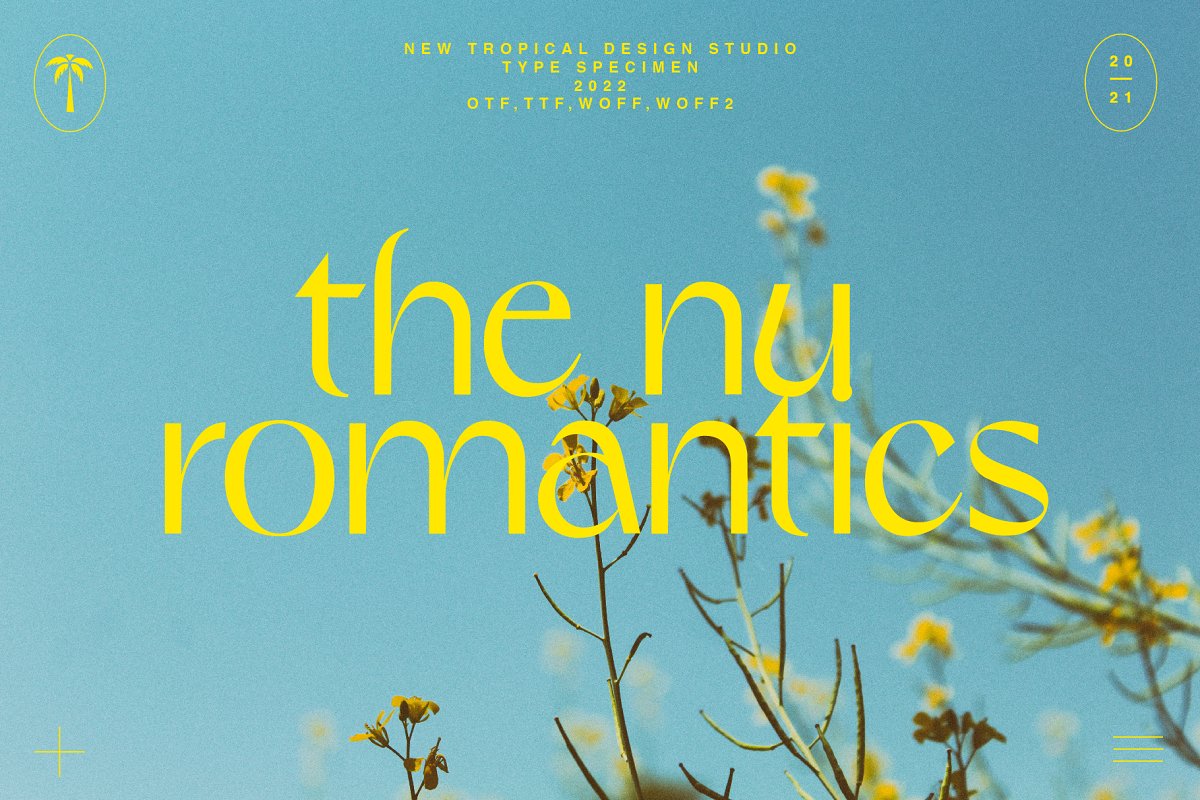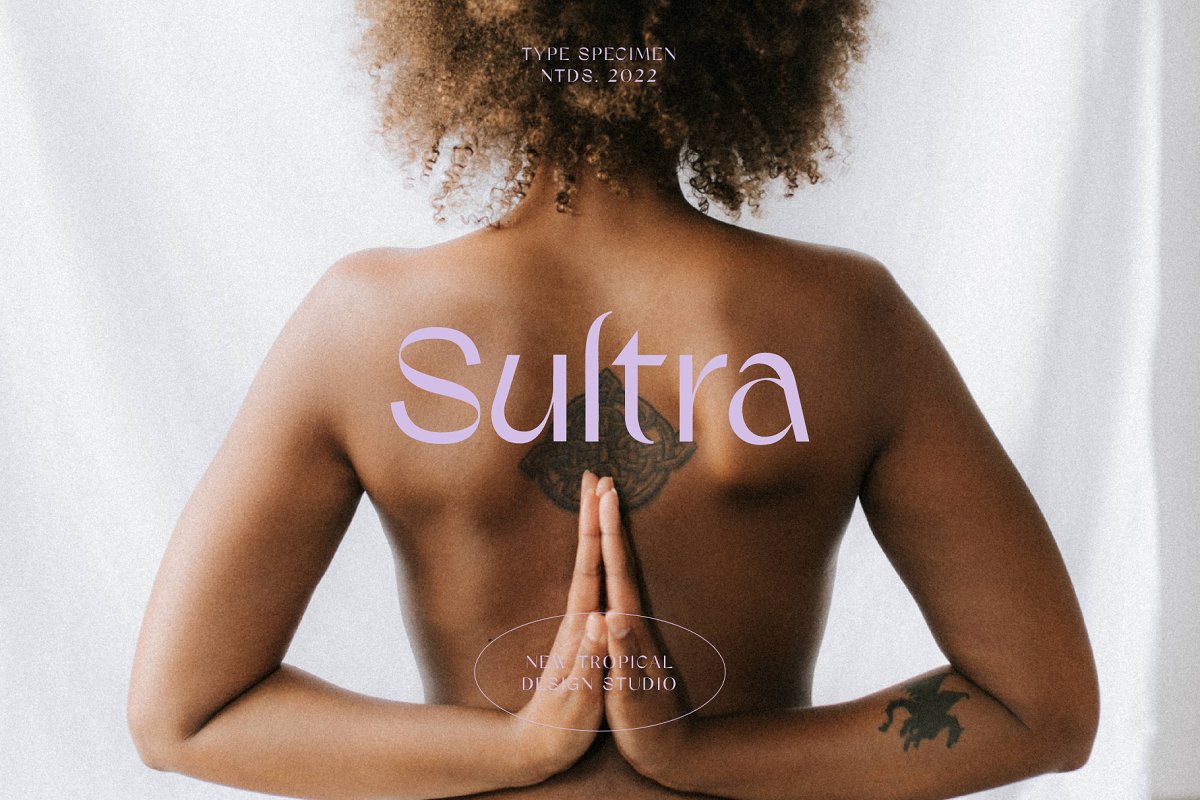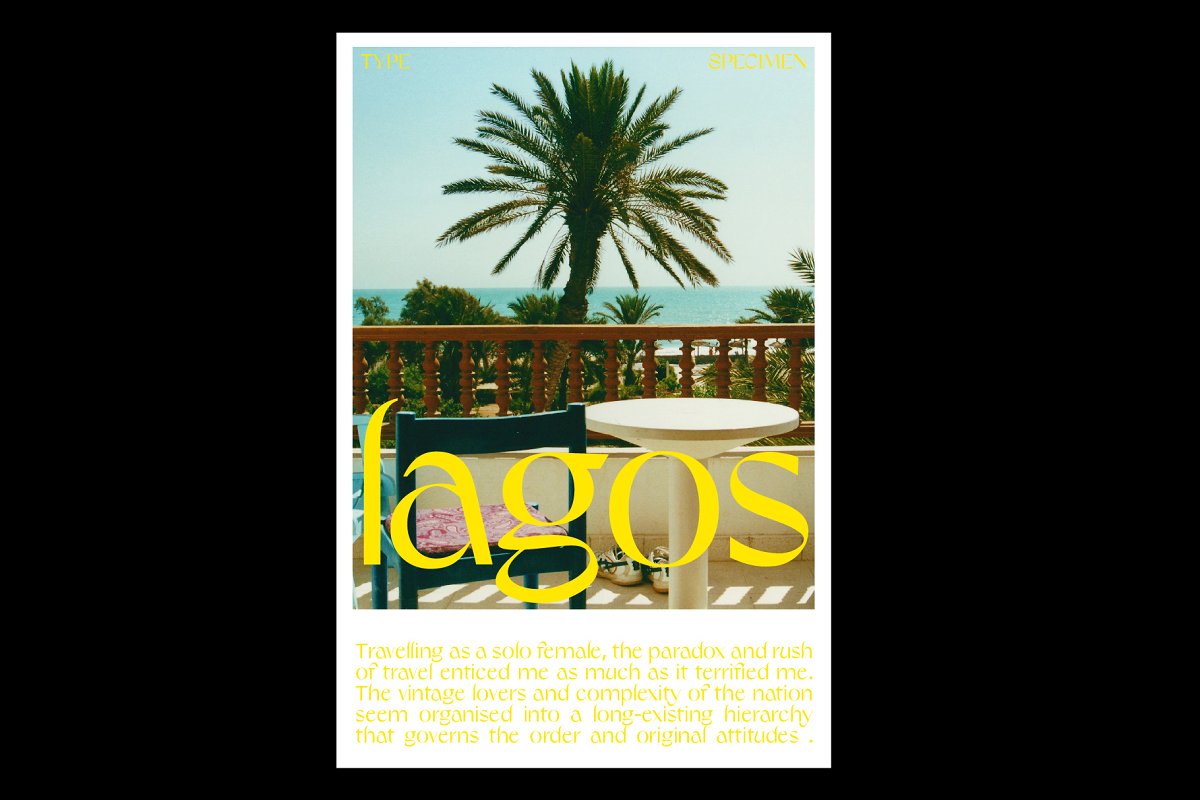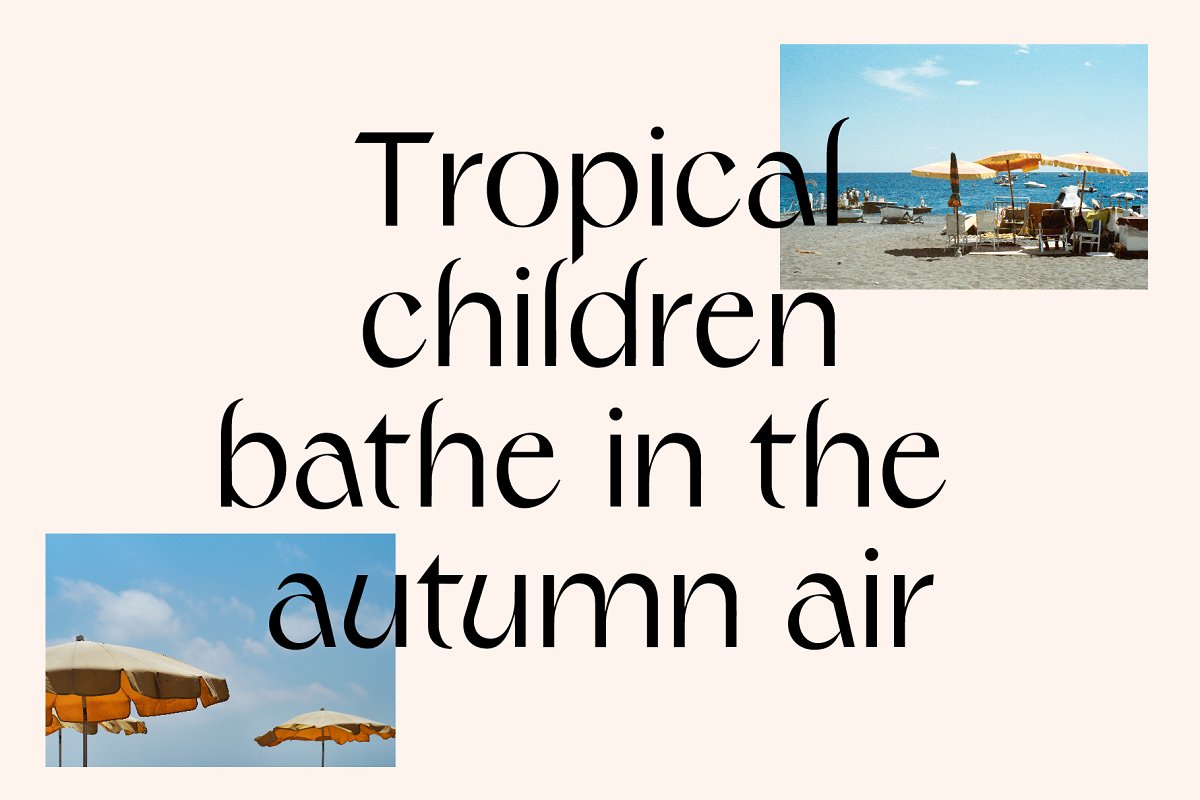
About the Dreamland Typeface Font
Dreamland is eclectic font that takes references from multiple styles and eras to create a unique modern typeface, The modern high contrast sans has hints of nostalgia mixed with avant-garde curves to create a memorable addition to your font collection, OTF, TTF, WOFF, WOFF2, SVG font filesuppercase, lowercase, numbers, punctuation Multilingual support ( including polish )FAQ’SCan i use this font for my logo with the desktop license?YesCan i copyright or trademark a design with this font?I’m not a copyright lawyer but yeah go for it What software do the fonts work on?Once installed on your computer it will show up in any software that types Can i upload the fonts to my website or canva?Yes and yes If i want to use the fonts for my website and print design do i need 2 licenses?No, just get either one, they are the same price (desktop or web) Can i re-sell this font on dodgy Russian websites and make bulk cash?No that will make me sad